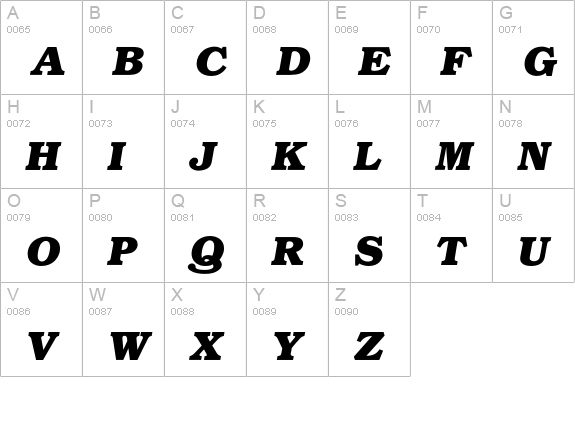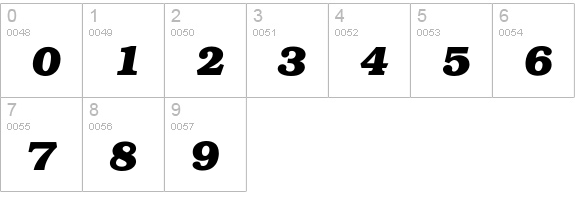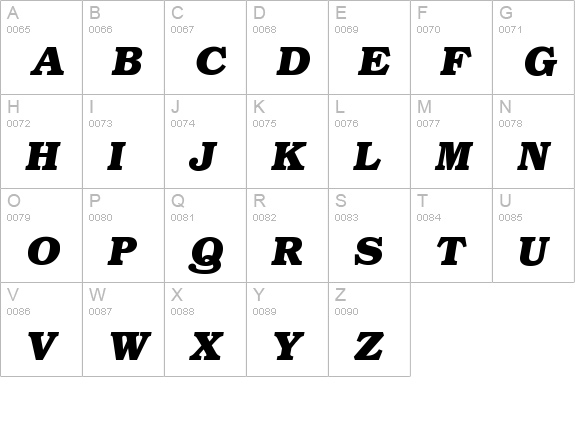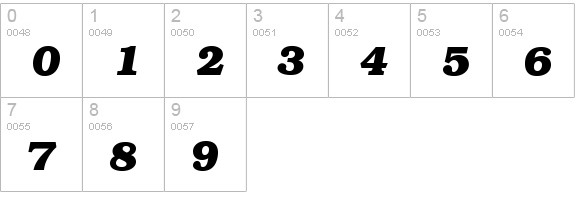
Bookman* Bold Italic Font Details
Bookman* Bold Italic is a strong, high-contrast, italic variant in the Bookman* typeface family \xE2\x80\x94 well suited to headlines, attention-grabbing titles, and strong calls-to-action.
Bookman* Bold Italic is a stylish and versatile font that exudes sophistication and elegance. Its bold and italic design adds a touch of flair and personality to any project, making it perfect for headings, titles, and other eye-catching text. The strong and distinctive letterforms of Bookman* Bold Italic command attention and convey a sense of authority and professionalism. What makes Bookman* Bold Italic even more appealing is that it is available for free download at FontsMarket.com. This means that you can effortlessly enhance your designs with this premium font without any cost. So whether you're working on a branding project, a poster, or a website, Bookman* Bold Italic is the ideal choice to make your text stand out and leave a lasting impression. Download it today and elevate your design to the next level!